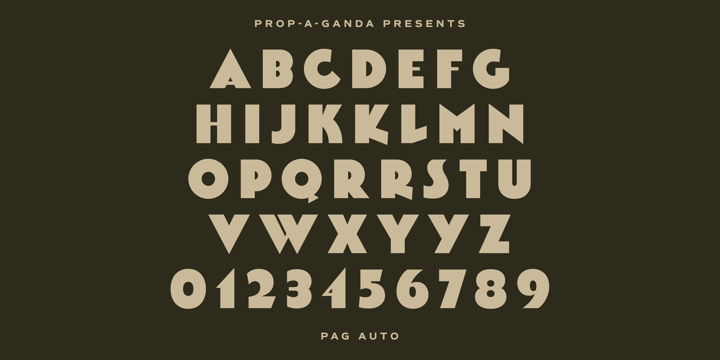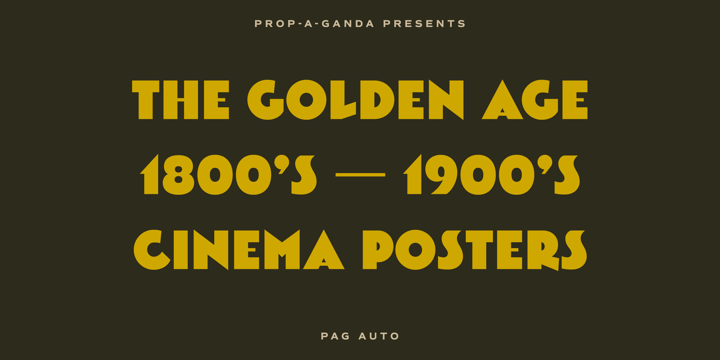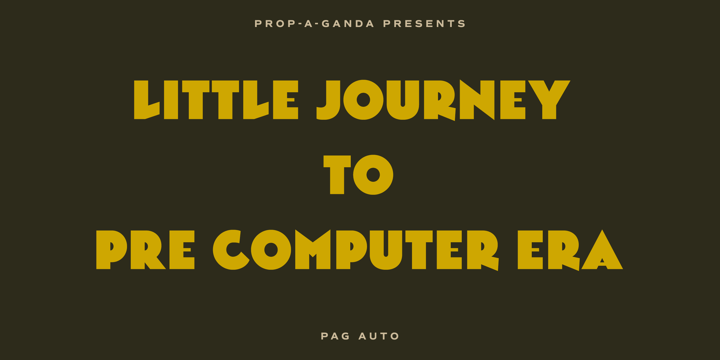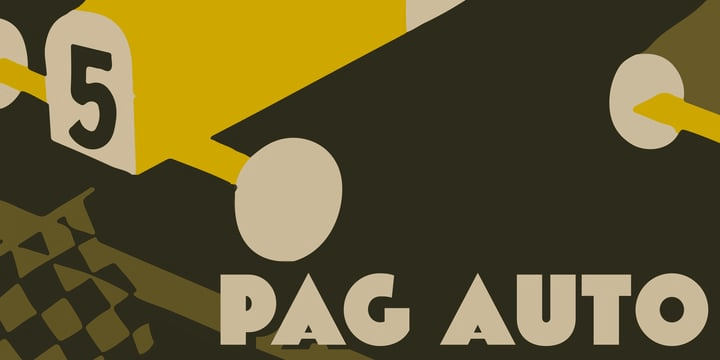
PAG Auto
About PAG Auto
Inspired by and based on retro propaganda posters, movie posters, shopfront lettering & advertisements in the early 20th century. This is perfect font for your retrostyle project.